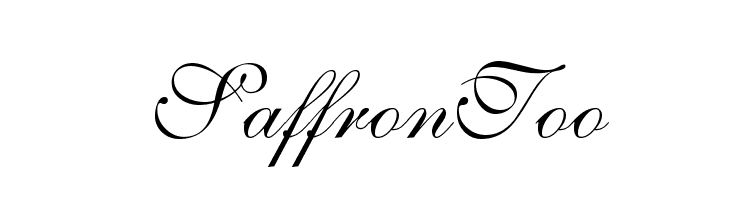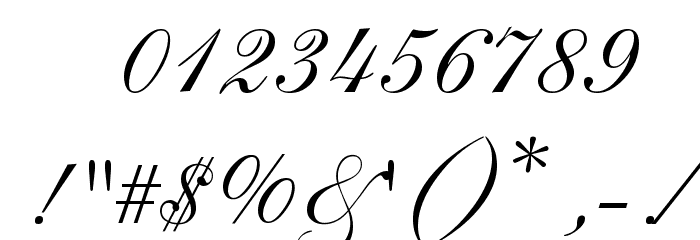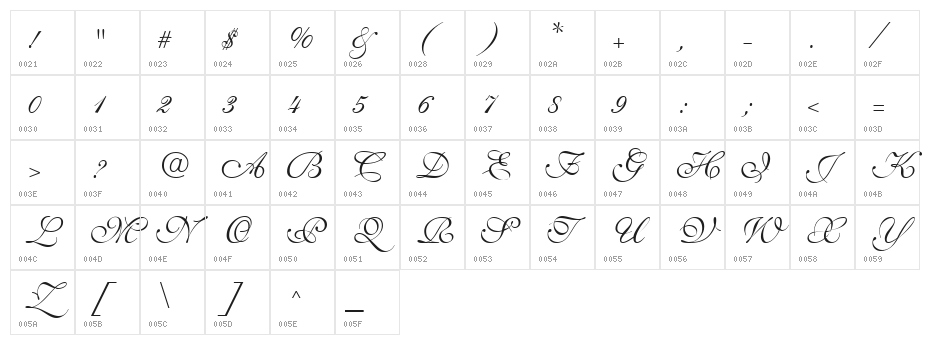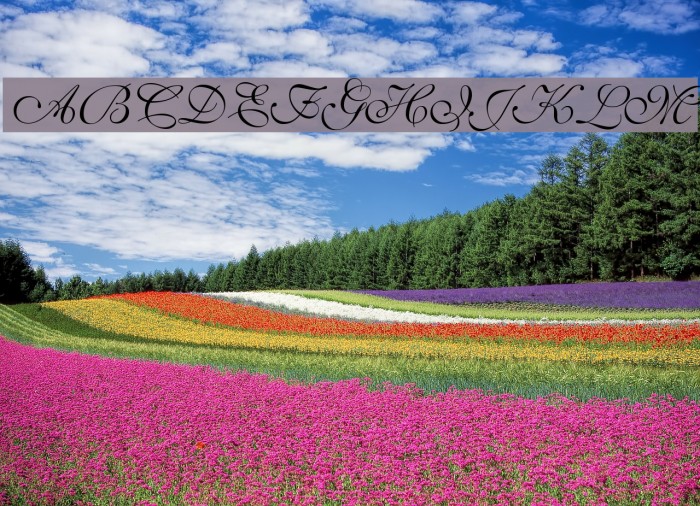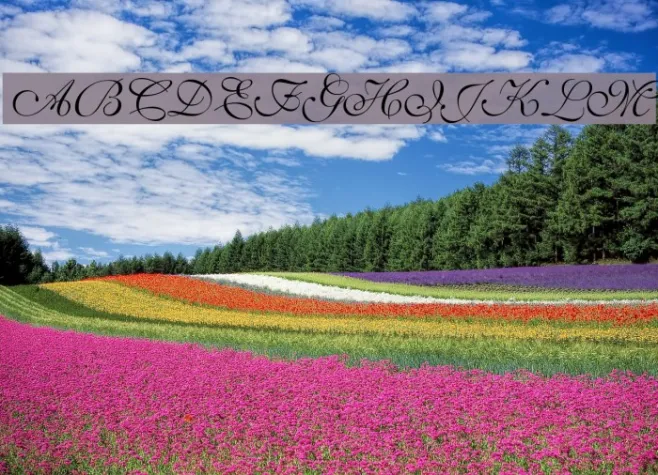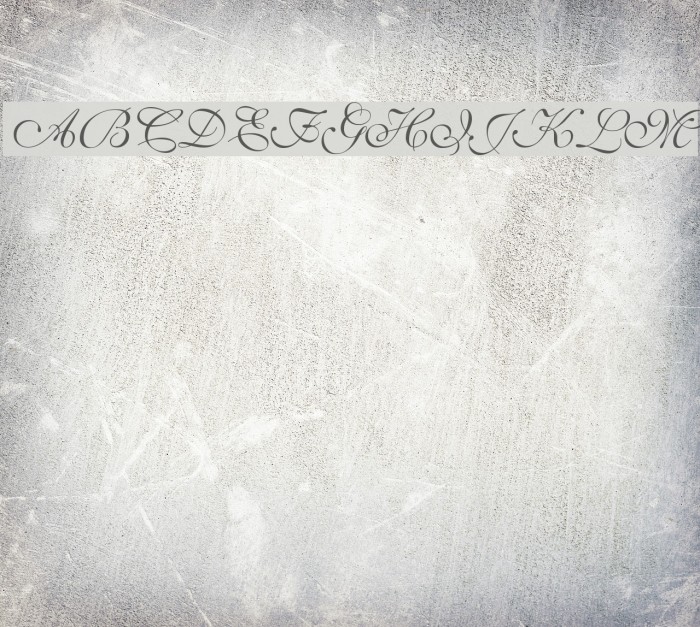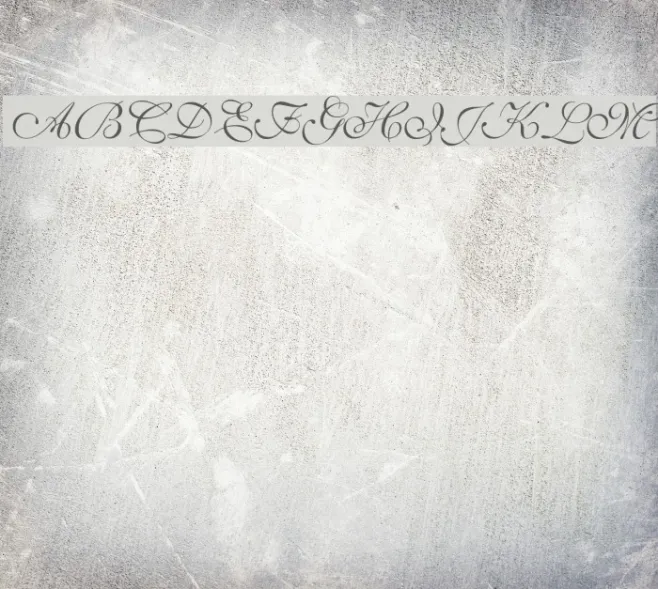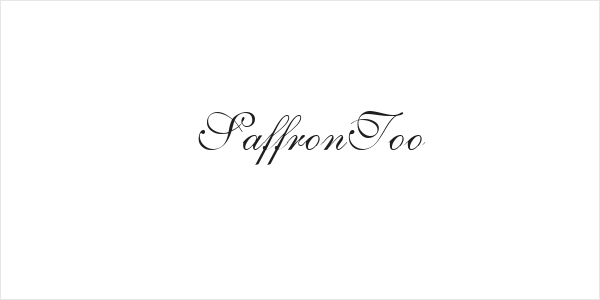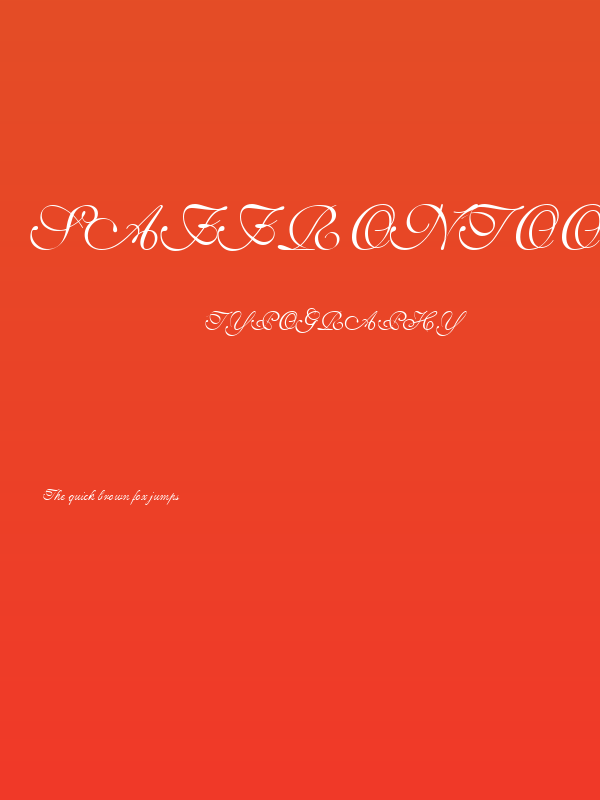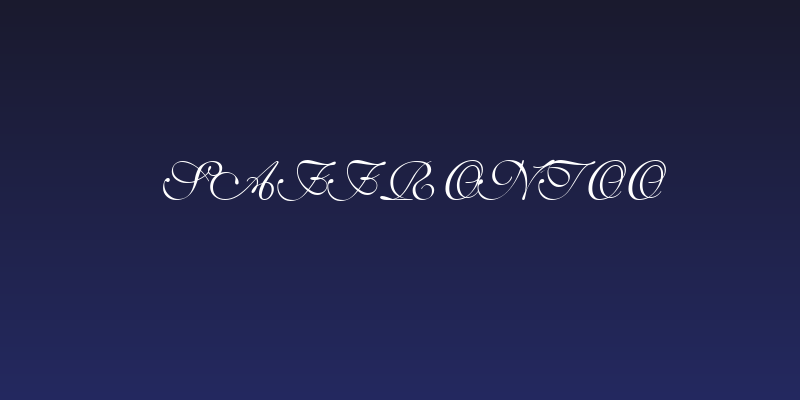
SaffronToo Font
SaffronToo Description
This elegant script font features a sophisticated and flowing design, characterized by its graceful curves and intricate swashes. The uppercase letters are particularly ornate, with elaborate loops and flourishes that give the font a luxurious feel. The lowercase letters maintain a consistent style, offering a smooth and connected appearance that enhances readability while preserving the decorative nature. The numerals and special characters are designed to complement the overall aesthetic, ensuring a cohesive look across all text elements. This font is ideal for projects that require a touch of elegance and refinement.